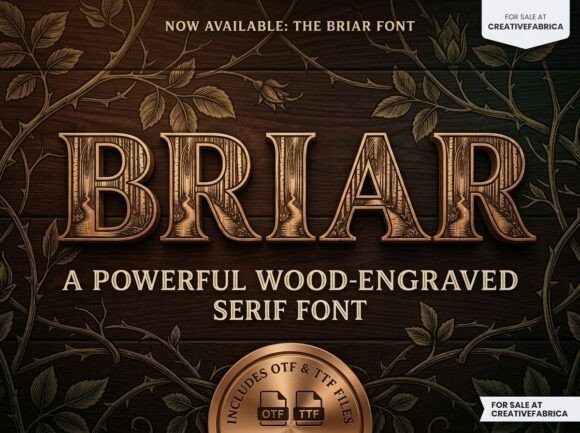
Introducing Briar Font: A Stunning Decorative Display Font
Are you tired of using the same old fonts for your creative projects? Look no further than Briar Font, a breathtaking decorative display font that’s sure to turn heads. Designed to be the center of attention, this font boasts unique artistic elements and a strong visual personality that will help you break away from the ordinary.
Perfect for Creators Who Want to Make a Statement
Briar Font is ideal for creators who want to add a touch of elegance and sophistication to their work. Whether you’re a graphic designer, artist, or crafty DIY enthusiast, this font is versatile enough to be used for a variety of projects, including bold headlines, artistic logos, and creative packaging. With its professional and polished finish, you can trust that your work will look top-notch.
⚠️ Before you buy, please note that Briar Font is an ALL-CAPS (Uppercase Only) display typeface. This means that it does not include lowercase letters. It’s specifically designed for high-impact headlines, logos, and decorative initials where every letter is a work of art.
Why Choose Briar Font?
So why choose Briar Font over other decorative display fonts? Here are just a few reasons:
- Unique Artistic Elements – With its one-of-a-kind design, Briar Font is sure to make your work stand out from the crowd.
- Strong Visual Personality – This font has a bold and confident personality that’s perfect for making a statement.
- Versatility – Use Briar Font for a variety of projects, from bold headlines to artistic logos and creative packaging.
- Professional and Polished Finish – With its clean and elegant design, Briar Font is sure to give your work a professional and polished finish.
- Use it for Headlines – Briar Font is perfect for creating bold and eye-catching headlines that will grab attention.
- Create Artistic Logos – With its unique design and strong visual personality, Briar Font is ideal for creating artistic logos that will help your brand stand out.
- Add a Touch of Elegance to Your Packaging – Use Briar Font to add a touch of elegance and sophistication to your packaging and make your products look more premium.
In conclusion, Briar Font is a stunning decorative display font that’s perfect for creators who want to make a statement. With its unique artistic elements, strong visual personality, and versatility, this font is sure to be a game-changer for your creative projects. So why wait? Purchase Briar Font today and take your designs to the next level!